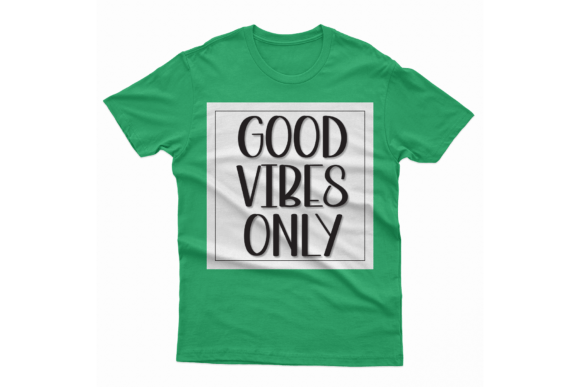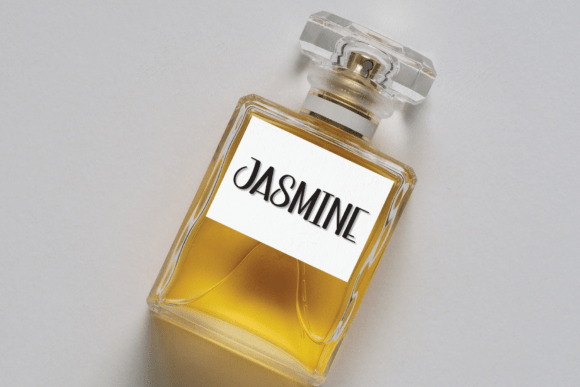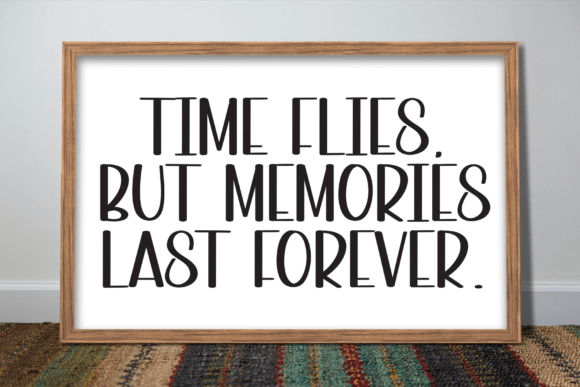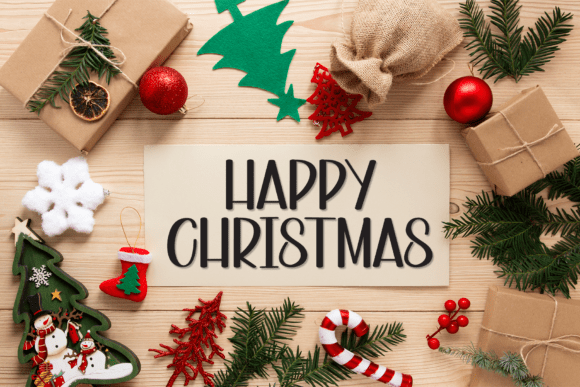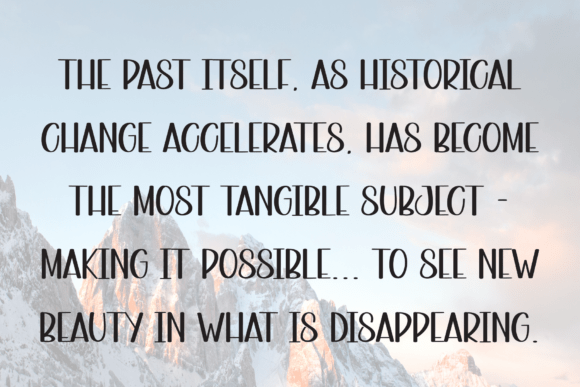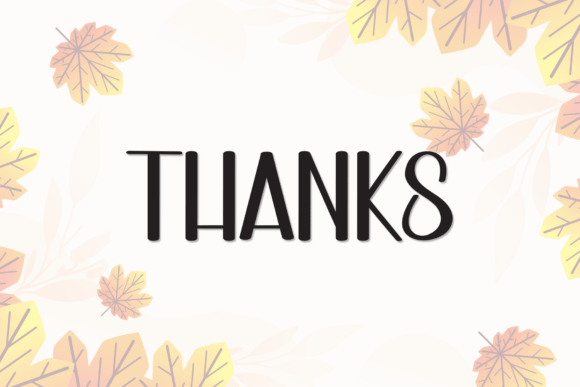
Autumn: A Playful Handmade Font to Cozy Up Your Designs
As designers, we’ve all been there – stuck on a project, searching for that perfect font to capture the essence of a season or theme. I recall working on a fall festival branding project, feeling frustrated with the usual sans-serif fonts that just didn’t convey the warmth and coziness I was aiming for. That’s when I stumbled upon the Autumn font, a beautiful “Playful Handmade Font” that instantly transported me to a crisp autumn day, surrounded by falling leaves and the gentle rustle of trees.
The Essence of Autumn
The Autumn font is designed to evoke a sense of nostalgia and calm, with tall, slender letterforms that feature a gentle, hand-drawn texture. This typeface is perfect for storytelling and seasonal celebrations, offering a natural and warm presence that’s ideal for heartfelt communication. Whether you’re creating fall festival branding, Thanksgiving stationery, or cozy home decor designs, Autumn is the ultimate choice.
- ✨ The hand-drawn texture adds a unique, organic feel to any design
- ✅ Perfect for seasonal celebrations, especially fall and winter themes
- 🎉 Highly versatile, pairing well with rustic watercolor illustrations and more
- 💕 The font’s gentle, nostalgic feel evokes a sense of warmth and coziness
- ⚠️ Some letters may require manual kerning for optimal spacing
- 🤔 Limited availability of certain OpenType features in certain software
The Story Behind Autumn
According to the designer, Autumn was inspired by long walks through the woods on crisp fall days. The goal was to capture the essence of the season in a font that felt both playful and elegant. The result is a typeface that’s perfect for designers looking to add a touch of warmth and coziness to their work.
Q: What makes Autumn a “playful handmade font”?
A: Autumn features a hand-drawn texture and gentle, imperfect letterforms that give it a playful, organic feel.
Q: Does Autumn support OpenType features?
A: Yes, Autumn supports a range of OpenType features, including glyphs, stylistic alternates, and more.